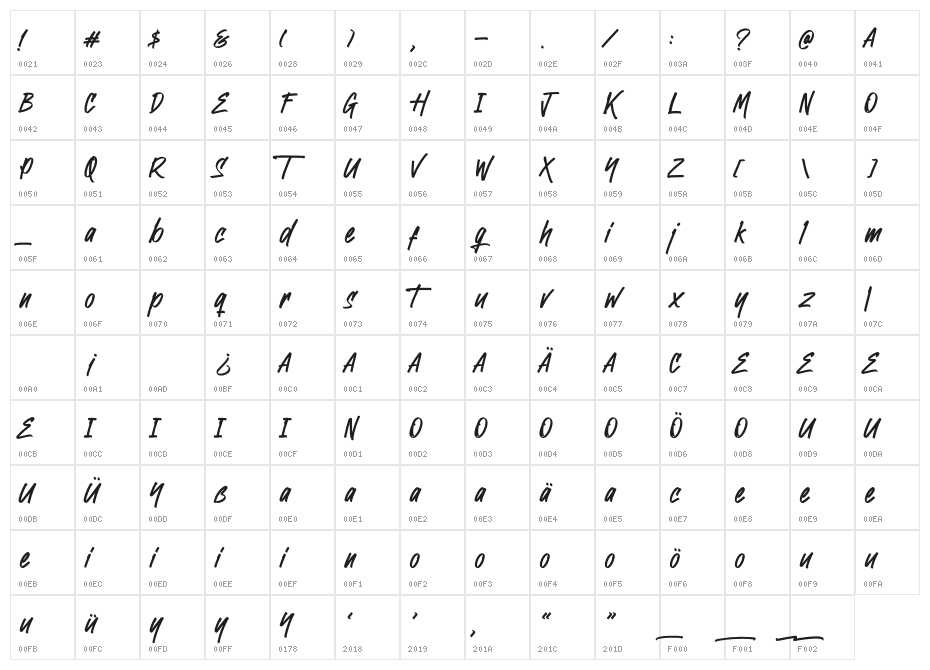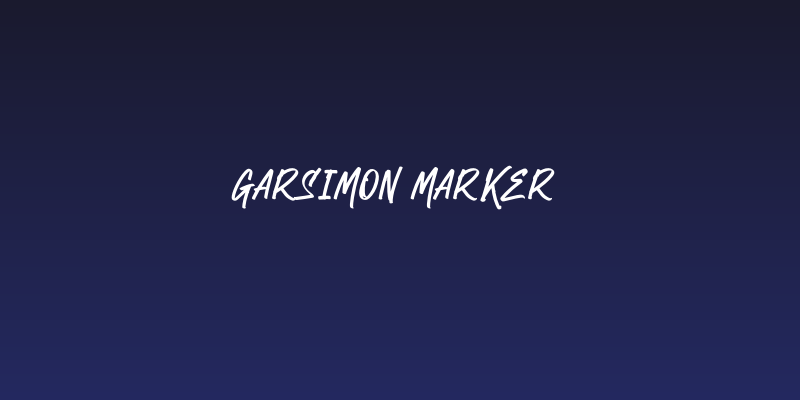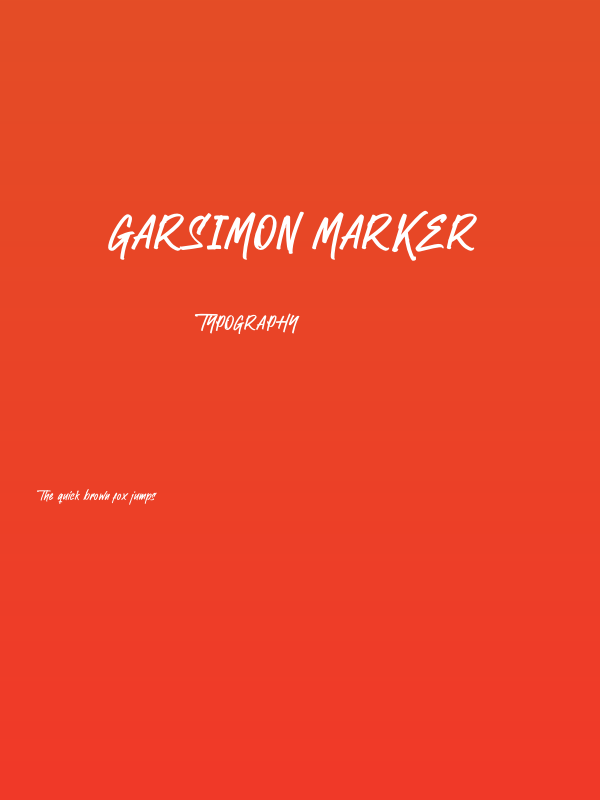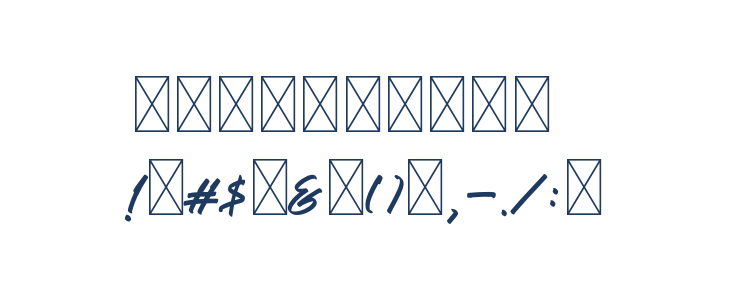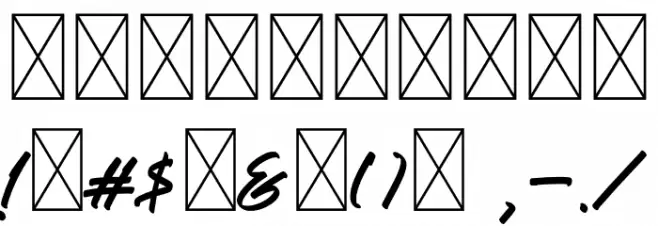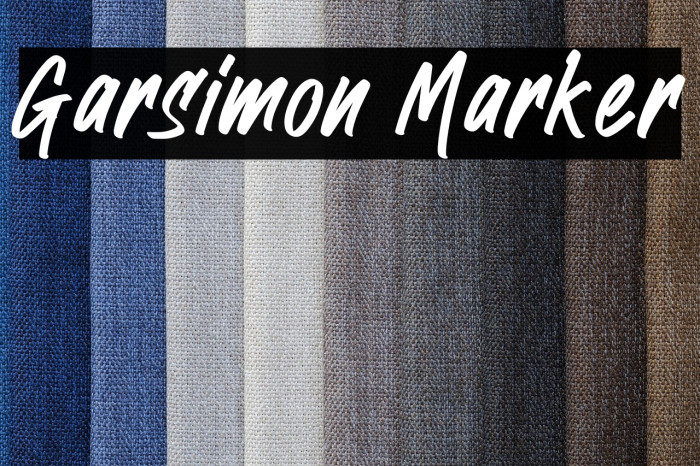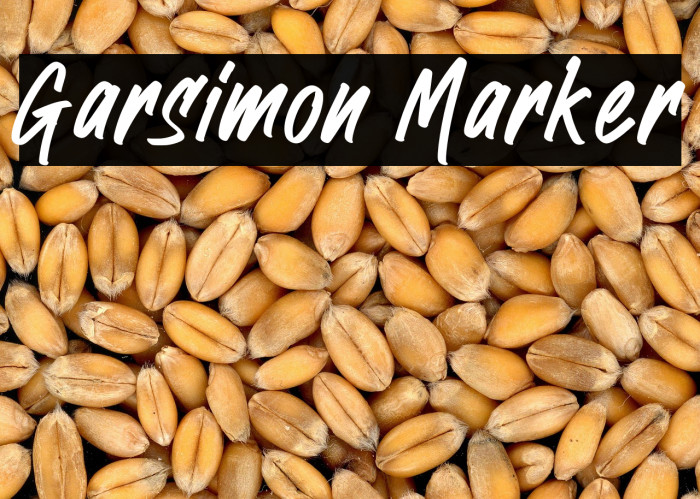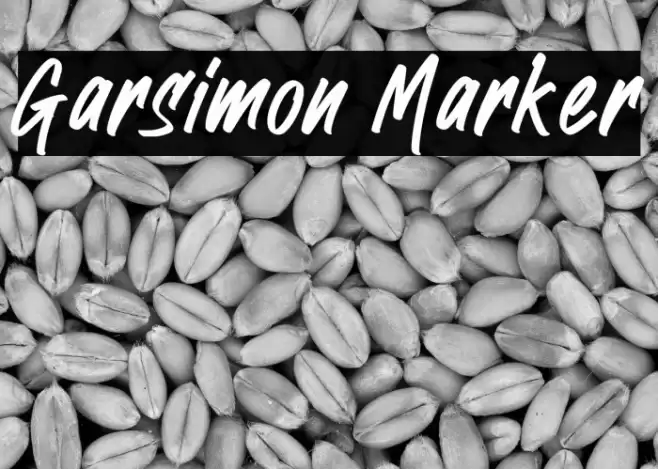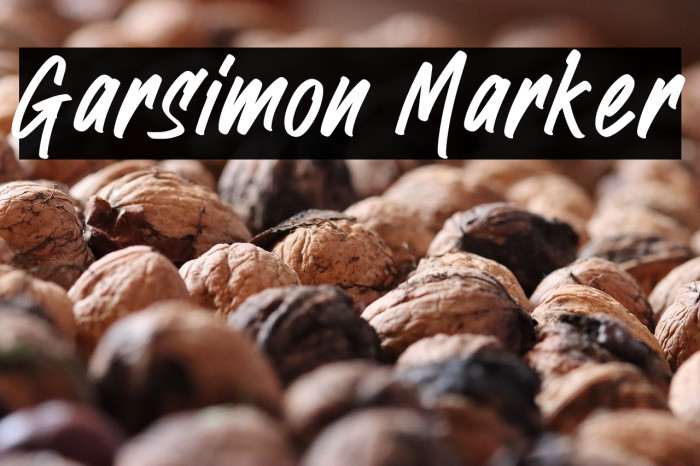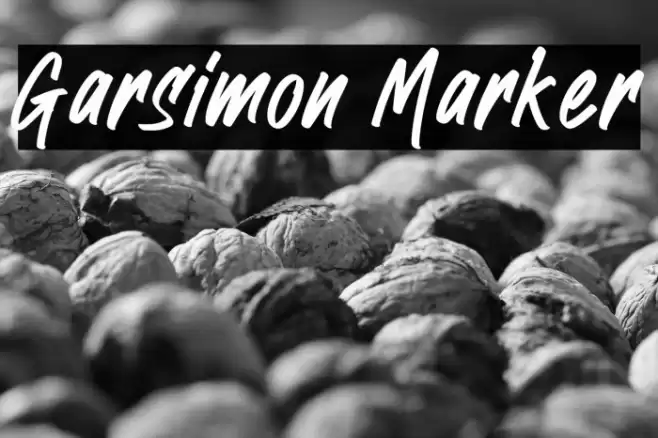
Garsimon Marker Font
Garsimon Marker Description
This font exudes a dynamic and energetic style, characterized by its bold, hand-drawn appearance. The letters are slightly slanted, giving a sense of motion and fluidity. The strokes are thick and consistent, with a casual, marker-like texture that adds a personal touch. The uppercase letters are prominent and assertive, while the lowercase letters maintain a cohesive flow. The font's informal and artistic nature makes it ideal for creative projects that require a touch of personality and flair.